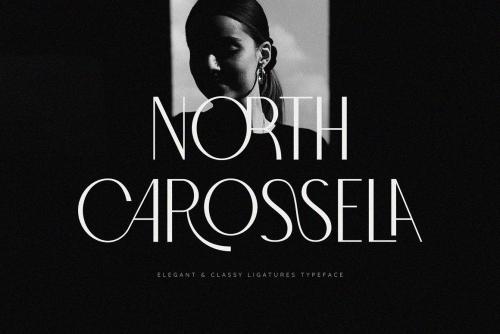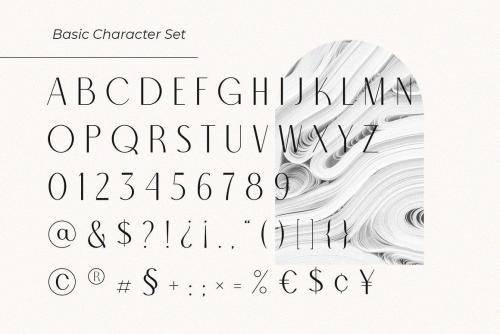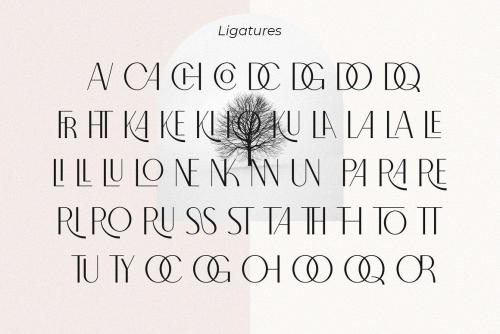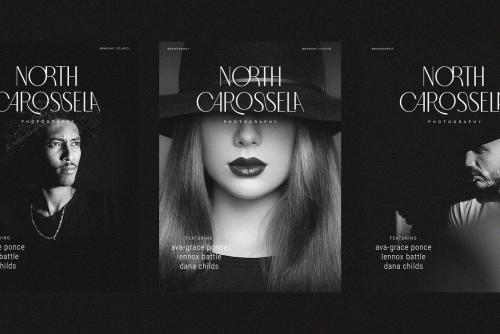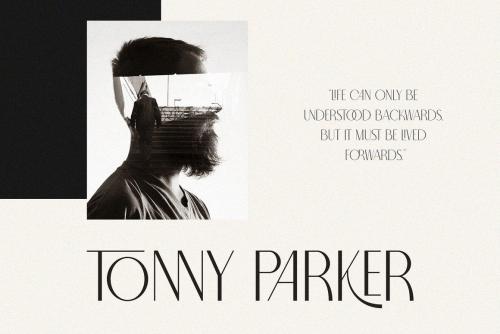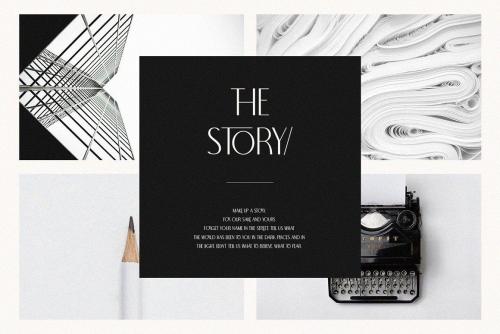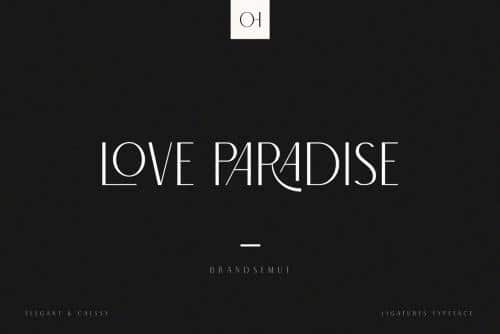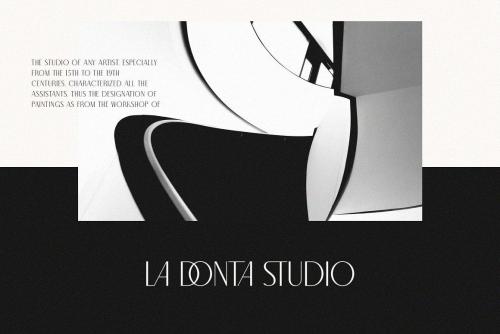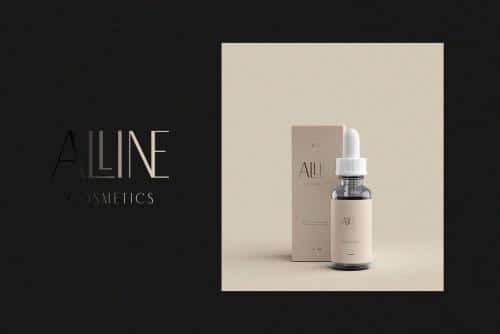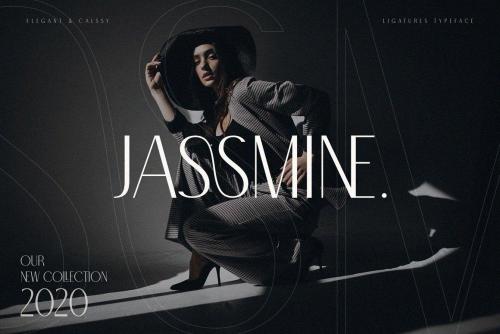
Introducing the new North Carossela A Ligature Sans!!! North Carossela is a elegant and classy sans typeface – already matched up and ready to be used together for your next design! For those of you who are needing a touch of elegant, stylish, classy, chic and modernity for your designs, this font was created for you!
North Carossela was built with OpenType features and includes ligatures, alternates, numbers, punctuation, and it also supports other languages.
- Designer: BrandSemut